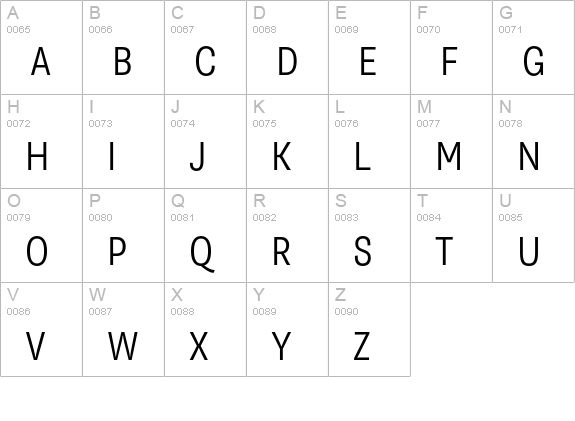
Supria Sans Cond Light Font Details
Supria Sans Cond Light is a refined, elegant, condensed-width variant in the Supria typeface family \xE2\x80\x94 well suited to elegant body text, refined sub-headings, and luxury branding.
Supria Sans Cond Light is a sleek and modern typeface that exudes elegance and sophistication. With its clean lines and contemporary design, this font is perfect for a wide range of design projects. Whether you're creating a minimalist logo, elegant invitations, or stylish branding materials, Supria Sans Cond Light will elevate your work to the next level. The light weight of this font adds a touch of delicacy and refinement, making it ideal for conveying a sense of sophistication and subtlety. Its condensed style saves space while maintaining readability, making it a versatile choice for both print and digital applications. And the best part? Supria Sans Cond Light is available for free download at FontsMarket.com. Now you can enhance your projects with this stunning font without breaking the bank. So why wait? Download Supria Sans Cond Light today and add a touch of elegance to your designs.